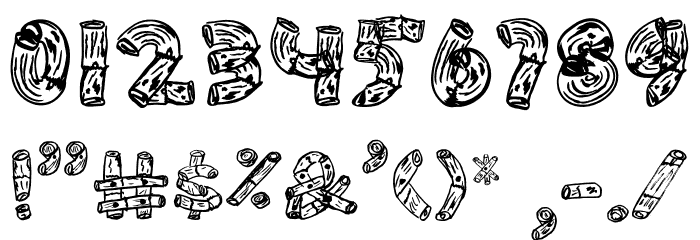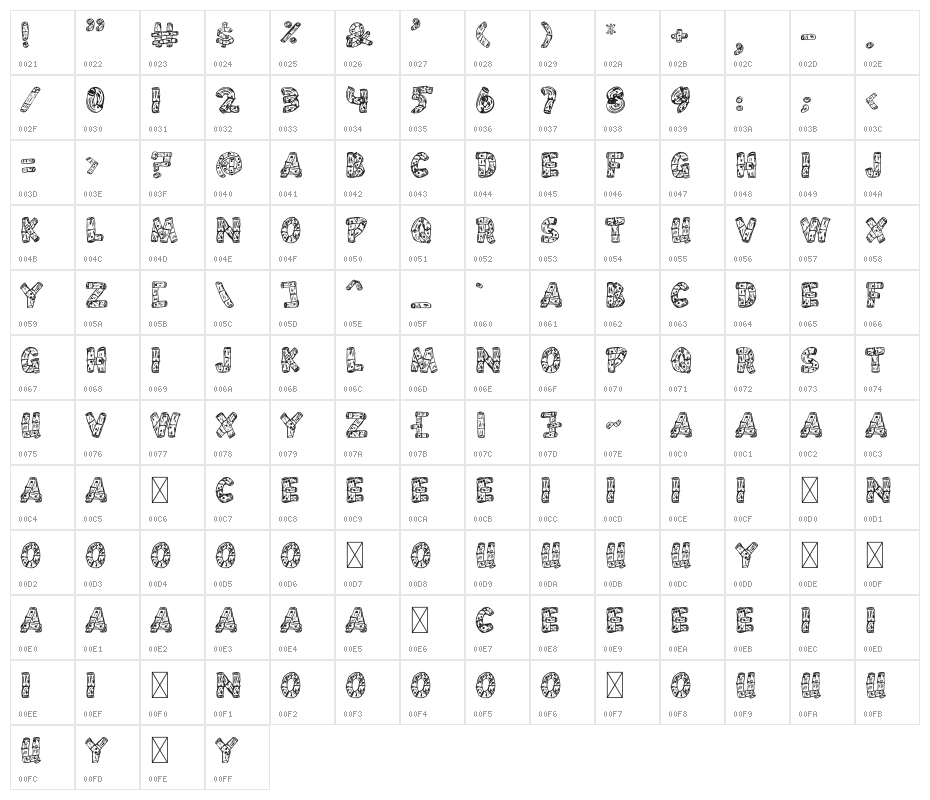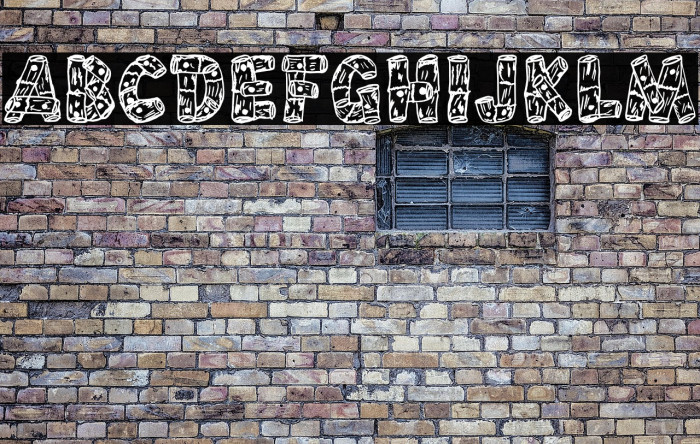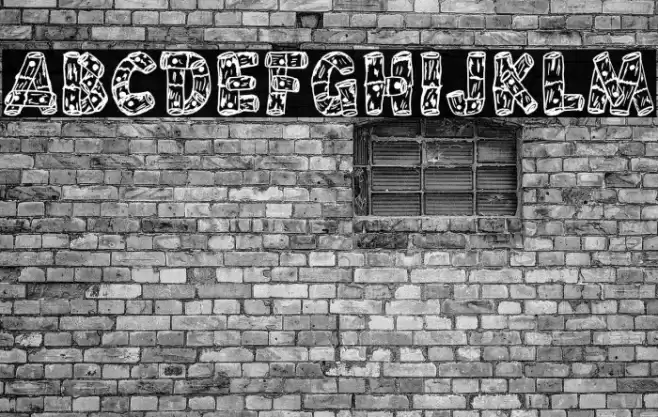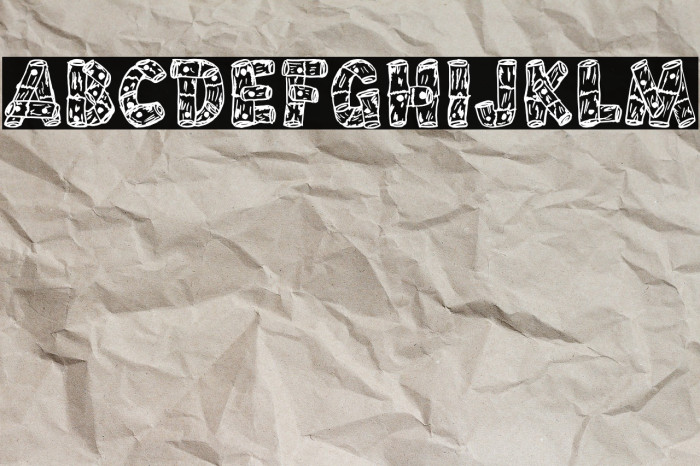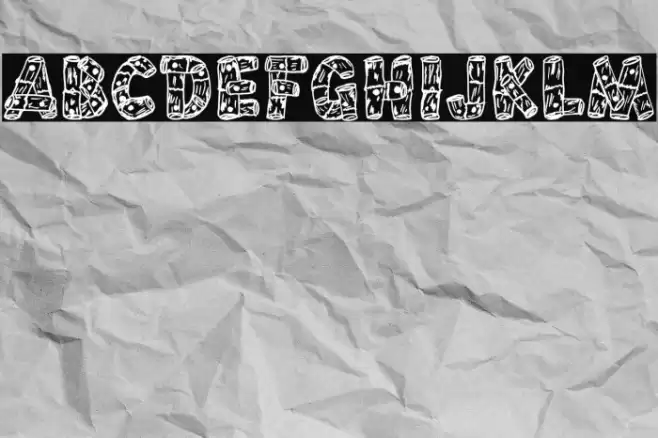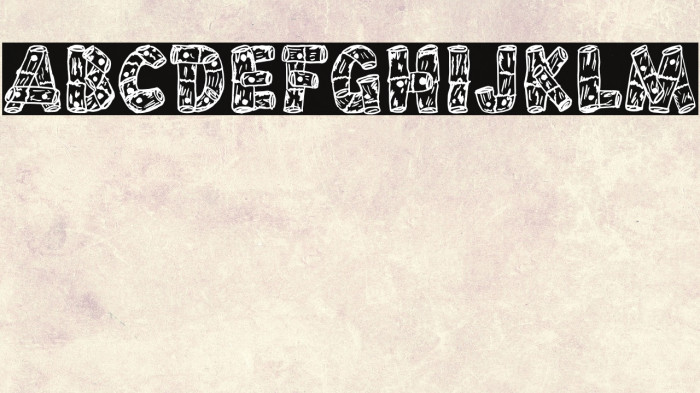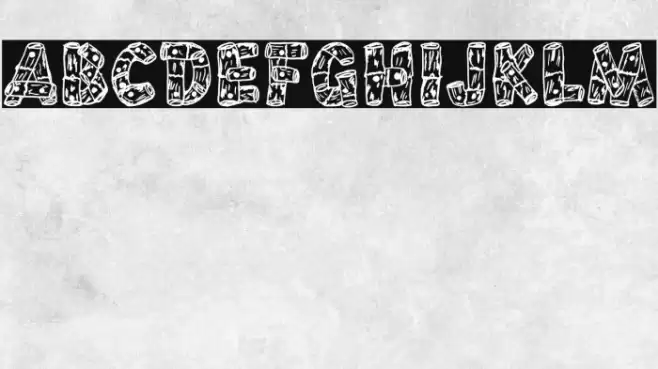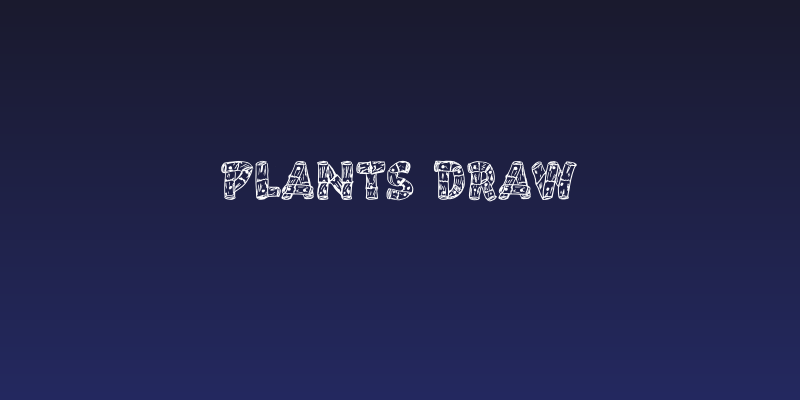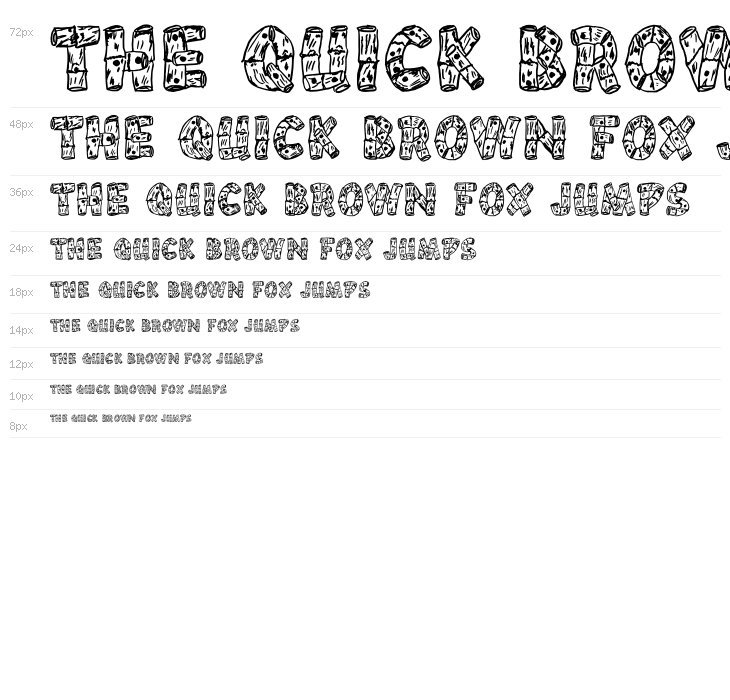
PLANTS DRAW Font
PLANTS DRAW Description
This font features a playful and organic design, with each character resembling a piece of wood or plant stem. The letters are bold and have a hand-drawn appearance, with intricate details that mimic natural textures. The overall style is whimsical and decorative, making it ideal for projects that require a natural or rustic feel. The font includes a full set of uppercase and lowercase letters, numbers, and a variety of special characters, all maintaining the same thematic design. The characters are evenly spaced, providing a balanced and cohesive look.
| Proposed Projects | Ideal for nature-themed posters, children's book covers, eco-friendly brand logos, and creative invitations. |